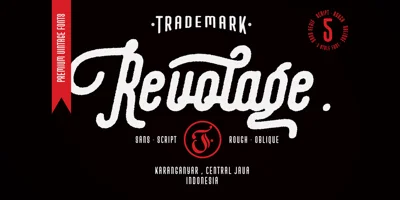
Revolage Font
Revolage Font is perfect for revolutionary branding, voltage-themed designs, electrical industry materials, energy company graphics, power system communications, electric innovation campaigns, voltage safety publications, and electrifying display typography.
What makes Revolage Font exciting is its electrifying revolutionary character that embodies electrical power and voltage energy through dynamic letterforms and electric appeal. This energetic typeface features voltage construction, electrical details, and power personality that captures the essence of electrical innovation and energy revolution, making it ideal for projects seeking to communicate electrical power, energy innovation, and voltage sophistication with authentic electric appeal and revolutionary refinement.
The Revolage Font family includes Light, Regular, Medium, and Bold weights, each maintaining the characteristic electrical energy and voltage appeal that define this distinctive typeface's power personality and electric sophistication.
Revolage Font offers designers access to a typeface that perfectly captures the essence of electrical power and voltage innovation. This energetic font brings authentic electric aesthetics to contemporary projects, making it essential for electrical companies, energy organizations, and power brands targeting audiences engaged in electrical innovation and voltage technology. The font's electrical construction and voltage details ensure immediate recognition of power and innovation while its distinctive character creates energetic connections among individuals seeking electrical solutions and power excellence. Whether designing electrical equipment materials, energy innovation campaigns, or voltage technology communications, this font delivers the electrical authenticity and power sophistication that energy-focused audiences expect. Its electrical foundation and voltage symbolism make it indispensable for projects celebrating electrical innovation, power technology, and the revolutionary impact of voltage advancement, ensuring communications resonate with audiences who value the electrical precision, power reliability, and voltage sophistication that define authentic electrical experiences and energy innovation across diverse electrical and power applications.